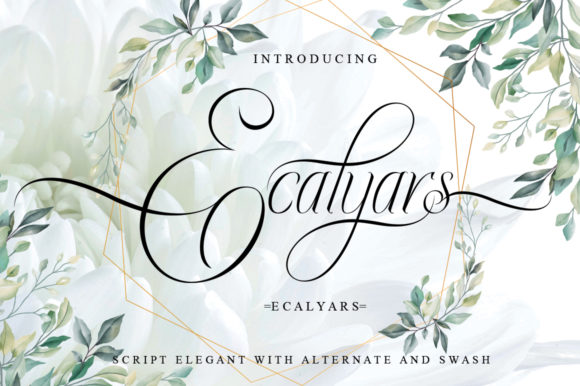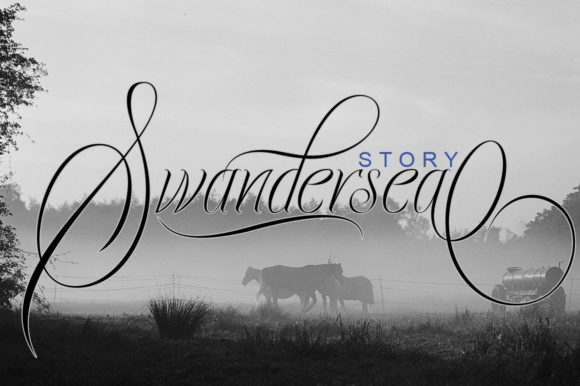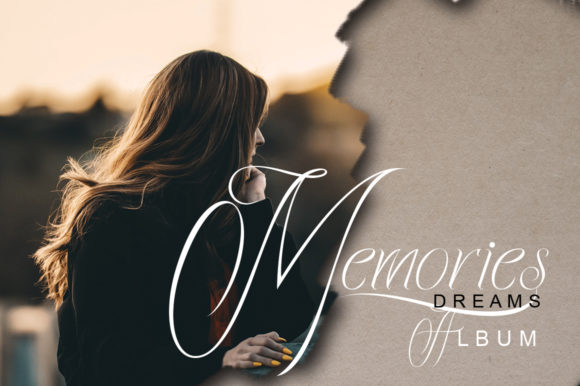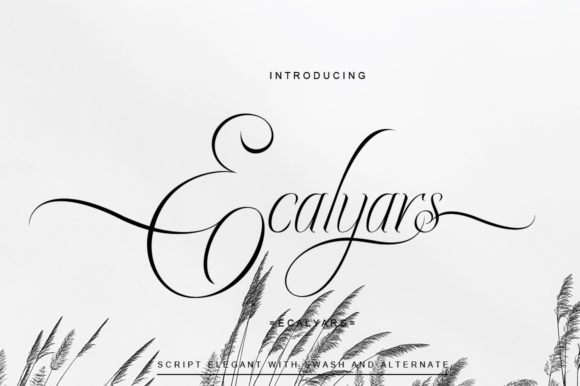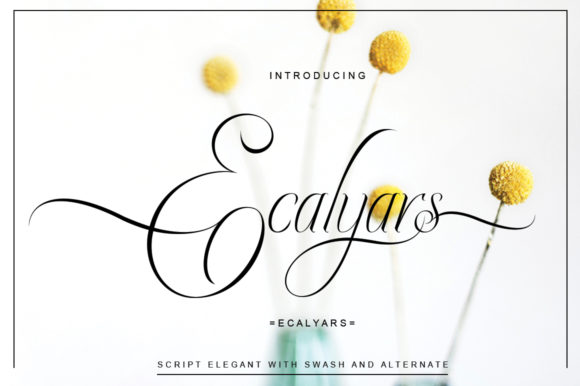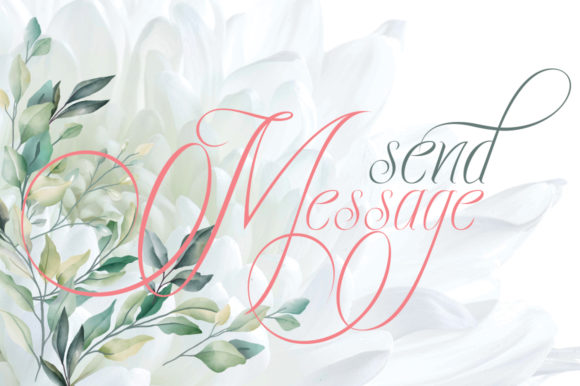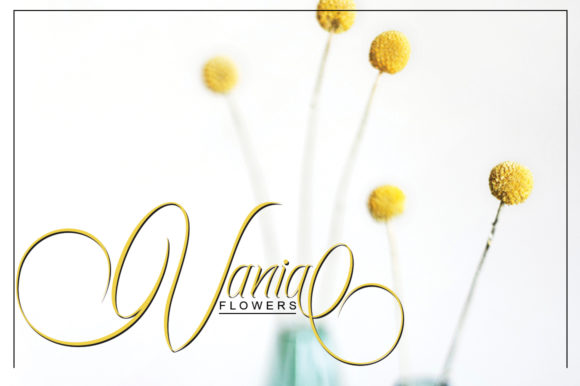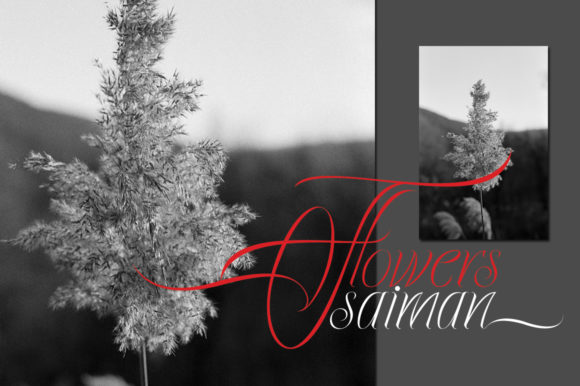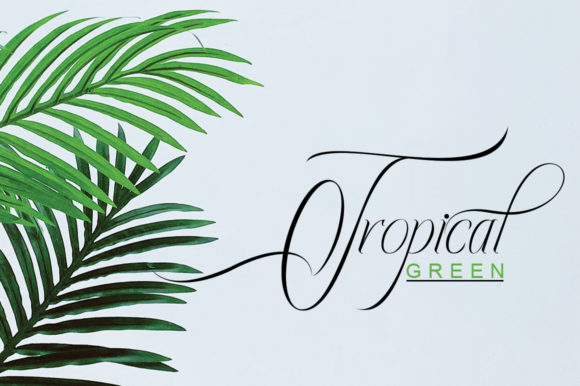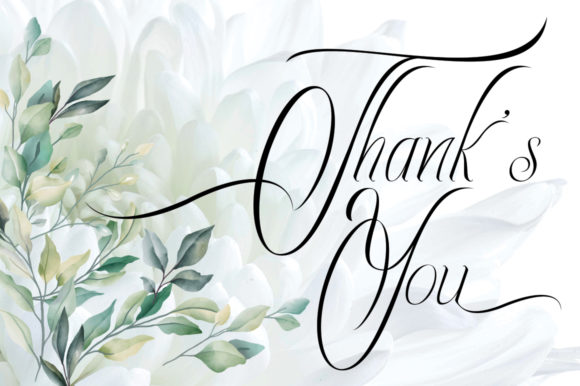
Ecalyars Font
Ecalyars is a beautiful and elegant script that updates classic calligraphy with a fancy feel. Use it to take any craft idea to the next level!